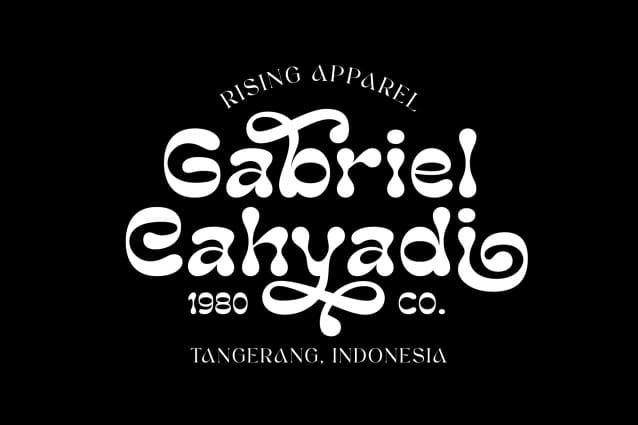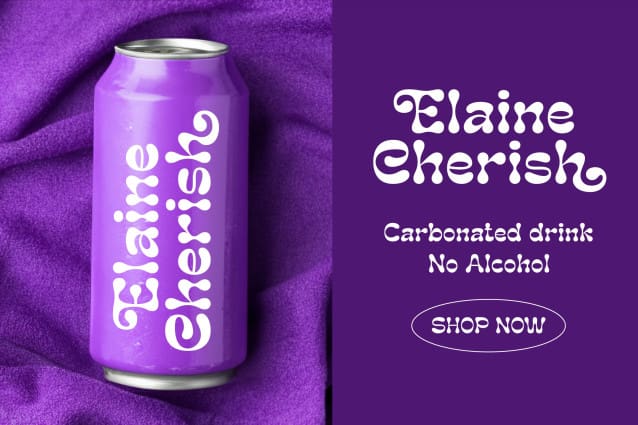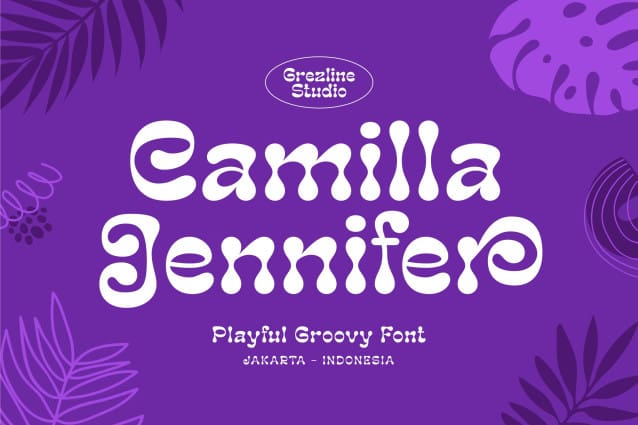
Camilla Jennifer Font
Camilla Jennifer Font, This font is perfect for stickers, retro projects, craft projects, shirts, svg designs, procreate designs, branding, blogs, logos, invitations and more!